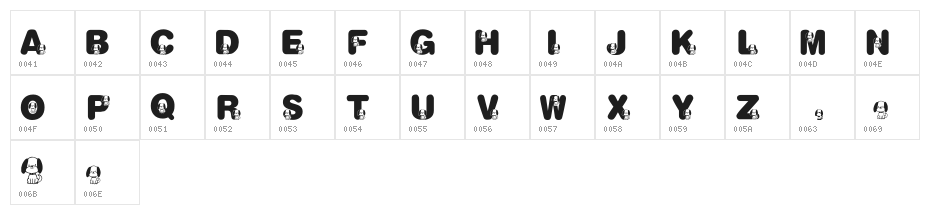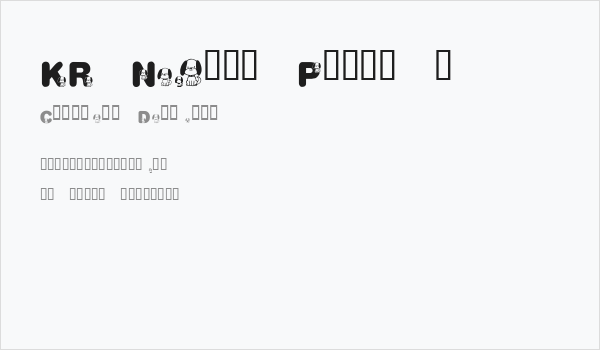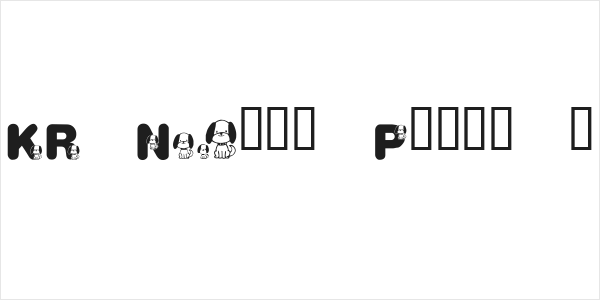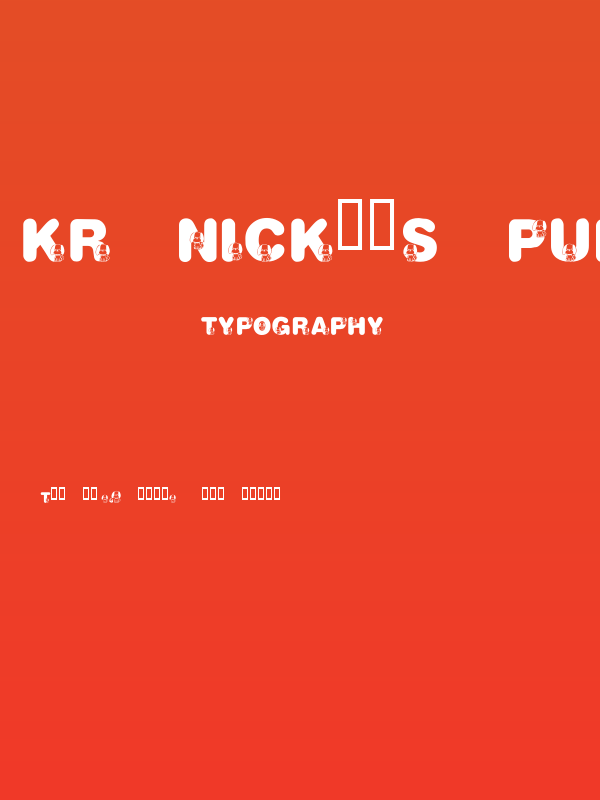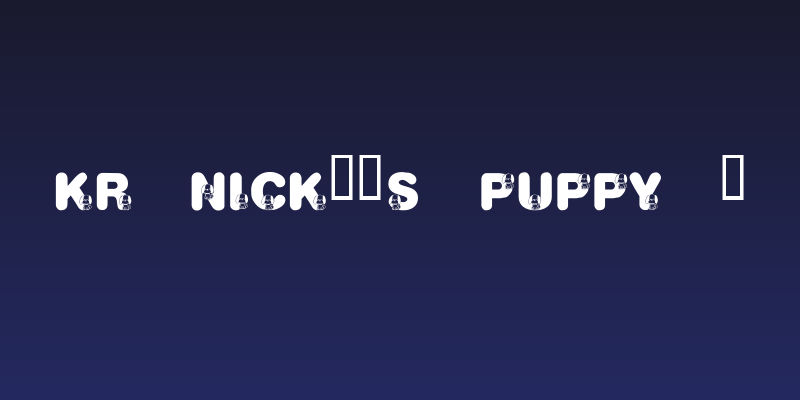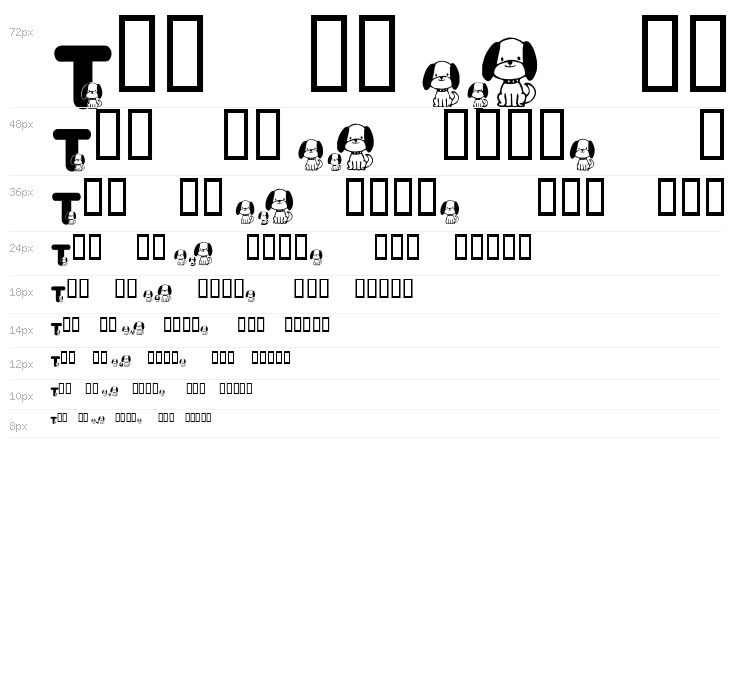
KR Nick's Puppy 1 Font
KR Nick's Puppy 1 Description
This playful and whimsical font features bold, rounded letters with adorable puppy illustrations integrated into each character. The design is highly decorative, making it ideal for projects that require a fun and lighthearted touch. The characters are evenly spaced, ensuring readability while maintaining a charming aesthetic. The font's unique style is perfect for children's materials, pet-related branding, or any creative project that seeks to evoke joy and playfulness.
Overall StylePlayful, Whimsical, Decorative
Use CaseHeadlines, Logos, Decorative Text
Proposed ProjectsIdeal for children's books, pet store branding, playful invitations, and whimsical graphic design projects.